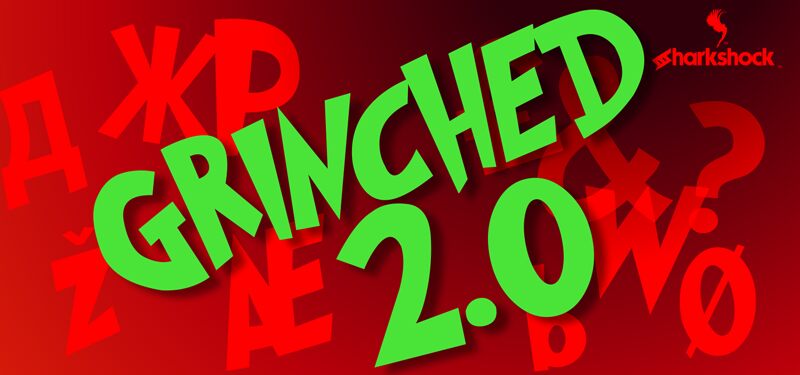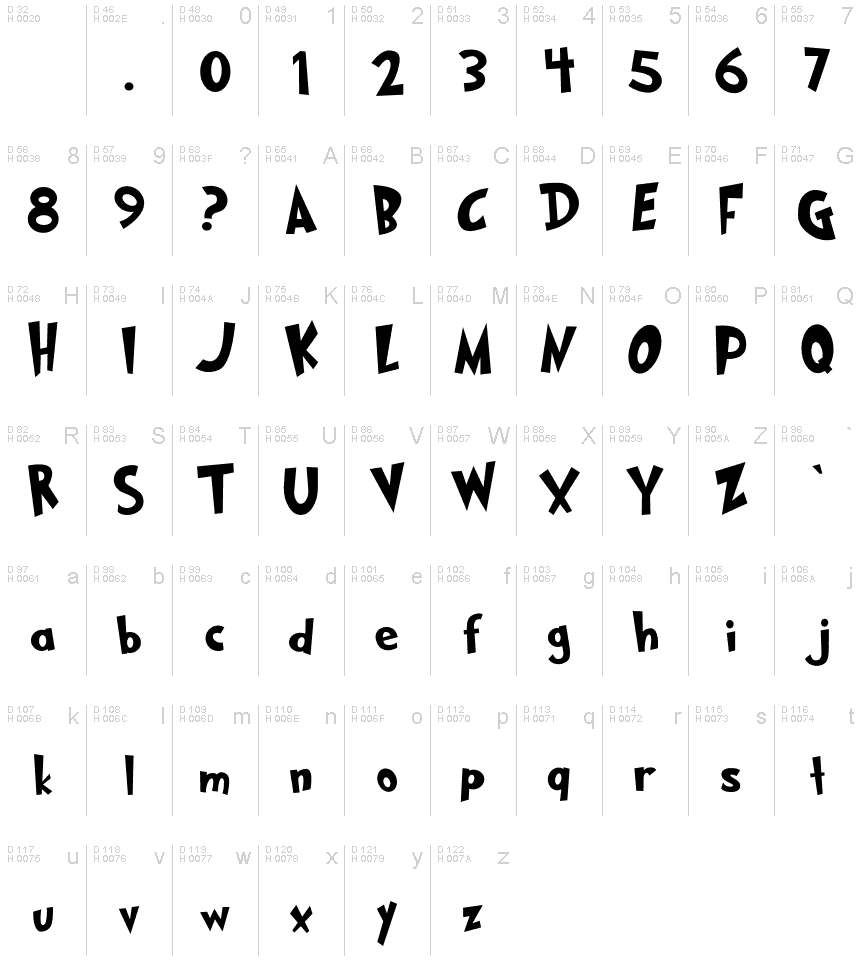
to completely redraw it keeping several of the original characters intact. 80% of the uppercase letters made their way back into the newer version while nearly all of the lowercase were
replaced and redrawn completely. Each letter was carefully re-edited for maximum sharpness and magnification at large sizes. Cyrillic characters were added for Russian and Ukranian users.
Basic and extended latin, numbers, punctuation, European accents, diacritics, Cyrillic, and kerning are included in the full version. Basic Latin, numbers,